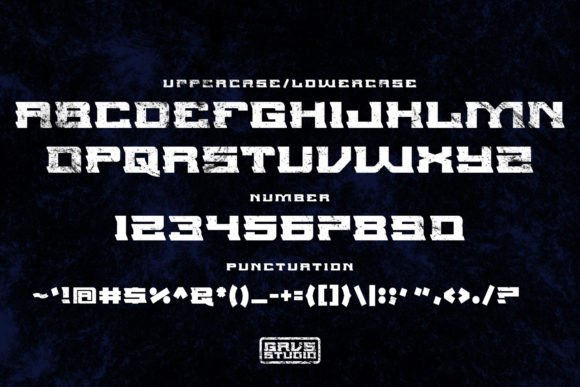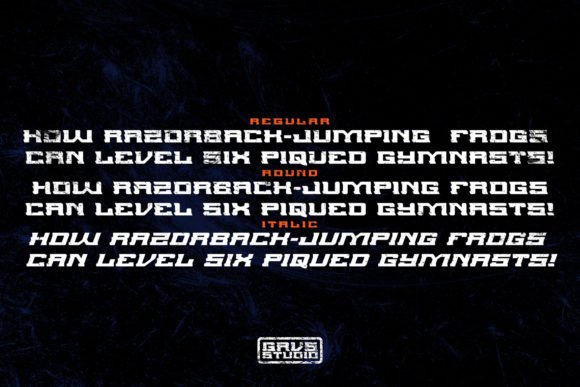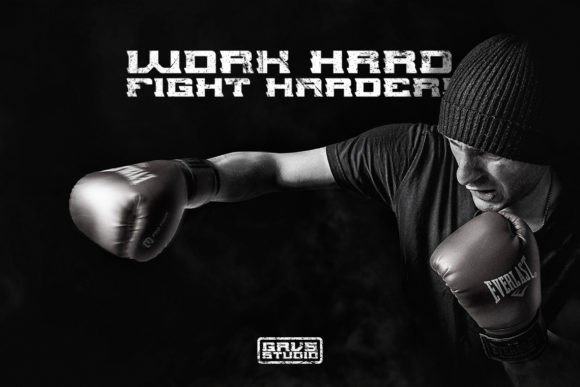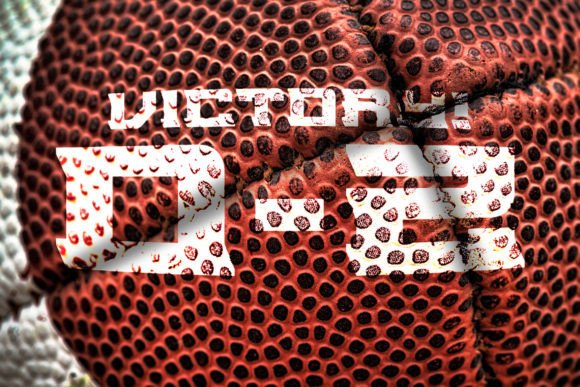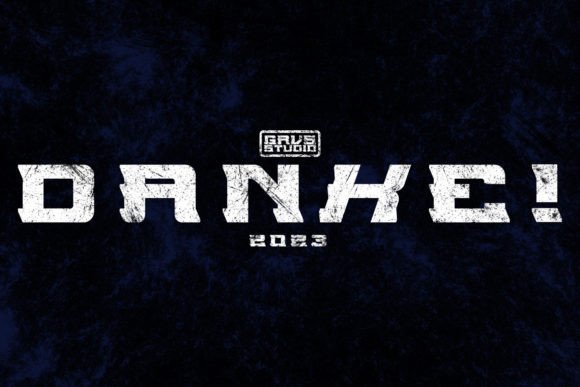
Introducing Denigrate Display Font: Elevate Your Designs with a Modern Twist
I’ll never forget the moment I stumbled upon the perfect font for a client’s logo project. It was as if the stars aligned, and my design worries disappeared. The font was modern, dynamic, and spoke volumes about the brand’s personality. If you’re a designer, crafter, or creative hobbyist, you know how crucial finding the right font can be. Today, I’m excited to introduce you to Denigrate Display Font, a stunning addition to your typography arsenal.
A Personal Encounter with Denigrate Display Font
As a designer, I’ve worked on numerous projects, from team logos to community emblems. One particular project had me stumped – the client wanted a font that was both modern and dynamic, with a dash of sophistication. That’s when I discovered Denigrate Display Font. Its sleek lines, bold presence, and versatility won me over. I knew right then that it was the perfect fit for my client’s project, and I’m confident it can do the same for yours.
Honest Review: The Good, the Bad, and the Quirks
- ✨ Modern and Dynamic Theme: Denigrate Display Font boasts a fresh, contemporary look that’s perfect for logos, headlines, and titles.
- ✅ Highly Versatile: This font adapts seamlessly to various design contexts, from digital platforms to print materials.
- 💡 Excellent Legibility: Even at smaller sizes, Denigrate Display Font remains clear and readable, making it ideal for a wide range of applications.
While Denigrate Display Font is an excellent choice, there are a few minor considerations to keep in mind:
- 🤔 Limited Suitability for Body Text: Due to its bold and modern design, Denigrate Display Font might not be the best fit for lengthy body text. It’s perfect for headlines and titles, but you may want to pair it with a complementary font for longer content.
- ⚠️ Glyph Limitations: As with any font, there might be limitations to the number of glyphs or special characters available. However, Denigrate Display Font includes a robust set of OpenType features, glyphs, and stylistic alternates to enhance your designs.
Denigrate Display Font was crafted with the modern designer in mind. Its creation was inspired by the need for a font that embodies both dynamism and sophistication. The designer aimed to create a typeface that would be versatile enough to be used across various platforms and mediums, from digital screens to print materials. The result is a font that is not only visually striking but also highly functional.
Q: What makes Denigrate Display Font unique?
A: Denigrate Display Font stands out due to its modern and dynamic theme, making it perfect for logos, titles, and headlines that require a bold presence.
Q: Is Denigrate Display Font suitable for body text?
A: While Denigrate Display Font is excellent for titles and headlines, it might not be the best choice for lengthy body text due to its bold design. It’s recommended to pair it with a complementary font for longer content.